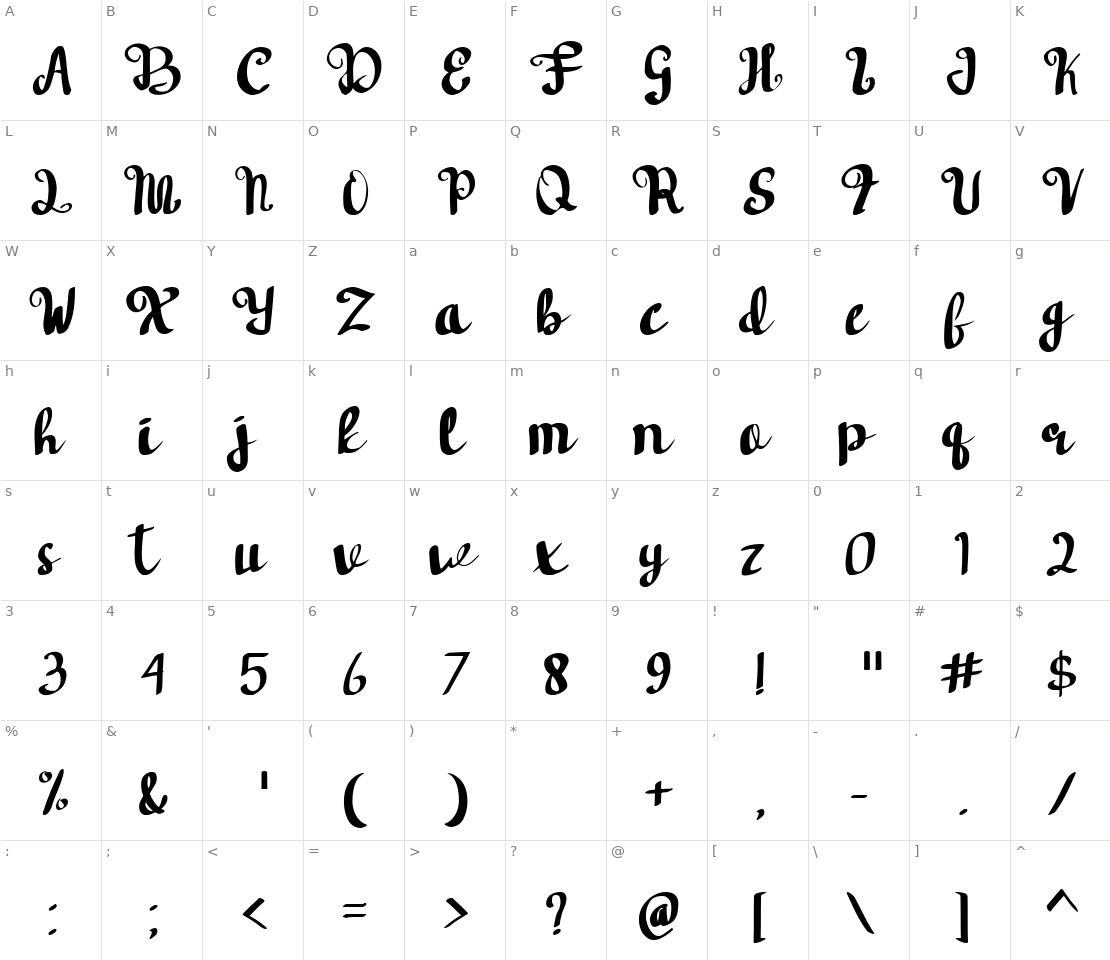
Hudson
Hudson is a bold brush typeface by wonoayu79 with thick, expressive strokes that carry the energy of a loaded brush moving fast across paper. The letterforms are heavy and casual, with enough personality to stand on their own in headlines, posters, and branding where you want something that feels hand-painted but hits with real weight.